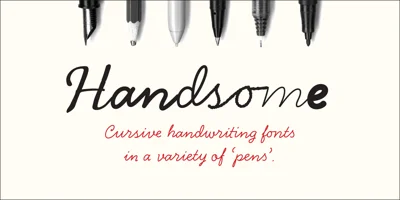
Handsome Font
This stylish display typeface is perfect for fashion brands, grooming products, men's lifestyle magazines, barbershop signage, luxury accessories, premium watches, cologne packaging, gentleman's clubs, and sophisticated logo design.
Handsome Font brings excitement to your design projects with its masculine elegance and refined charm. This distinguished display font features bold, confident letterforms that exude sophistication and style, making it perfect for brands targeting discerning gentlemen and luxury markets. The font's strong character and polished appearance create an immediate impression of quality and exclusivity while maintaining excellent readability across all applications.
The Handsome Font family includes regular, bold, and condensed variations, providing designers with versatile options for creating striking brand identities. Each style maintains the font's signature sophistication while offering different visual weights for various design contexts and marketing applications.
Elevate your brand presence with Handsome Font today. This distinguished typeface combines masculine appeal with contemporary style, making it essential for premium brand communications. Whether you're designing men's fashion campaigns, creating luxury product packaging, or developing upscale service branding, this font delivers impressive results with its confident personality and professional refinement.
The carefully crafted letterforms ensure consistent visual impact across all media platforms. Download Handsome Font now and add this sophisticated typography solution to your design collection for projects that demand masculine elegance and premium appeal.